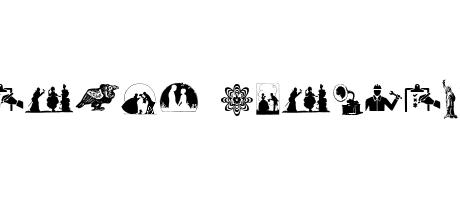
Random
Random Dingbats: A whimsical, symbolic typeface. Its glyphs are miniature, expressive scenes: a raven, lovers silhouetted against the moon, scientific imagery, and iconic figures like the Statue of Liberty. The style is bold, black-and-white, and slightly vintage, evoking a sense of storytelling and mystery. Each character is a tiny narrative.